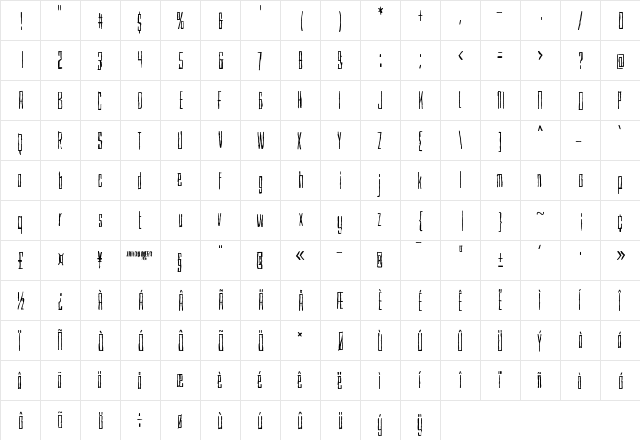
Cubebroken Regular
| Foundry | junkohanhero |
| Designer | junkohanhero |
Design Context for Cubebroken Typeface
Cubebroken is a composed and adaptable typeface that performs quietly and consistently across a wide range of design contexts.